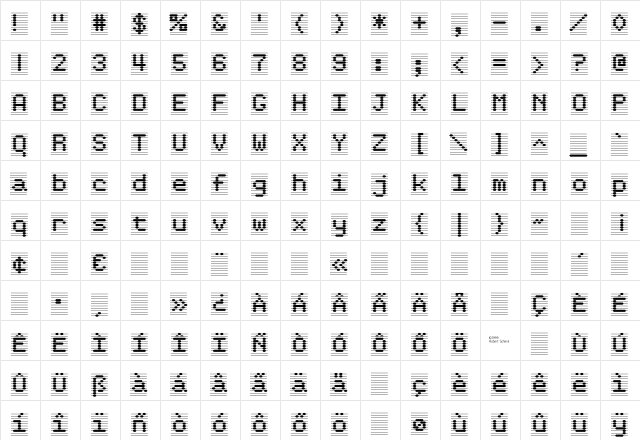
Karlisbad Regular
Design Context for Karlisbad Typeface
Karlisbad takes a measured approach to typography — its balanced proportions and neutral character make it a reliable workhorse for both digital and print work.